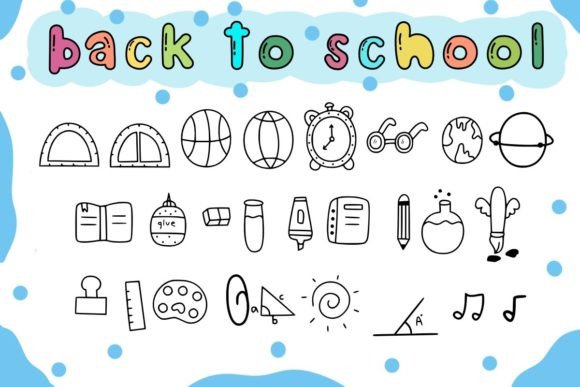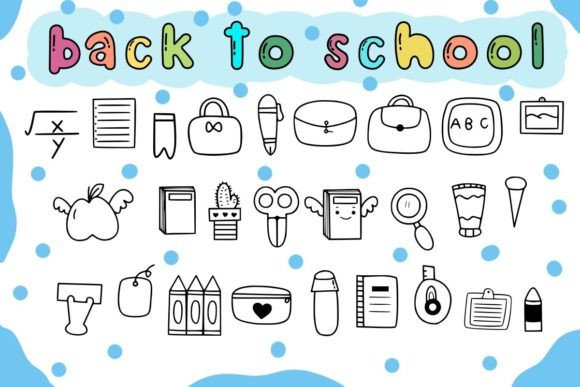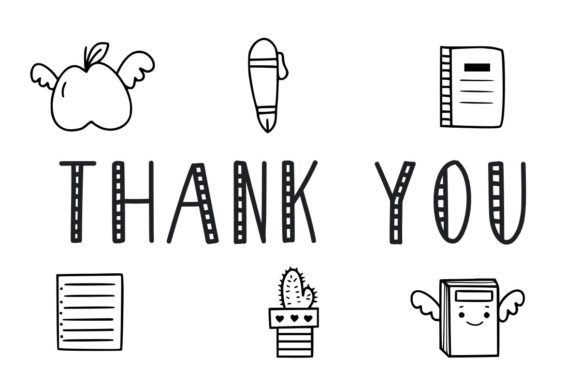
Back to School Font
About Back to School Font
Introducing “Back To School,” a cute and useful dingbats font that captures the essence of the school season. This adorable font is perfect for a wide range of applications, including decorating designs, crafting, worksheets, digital designing, presentations, greeting card making, and more. Let “Back To School” add a touch of charm and nostalgia to your creative ideas, making your designs outstanding!
With “Back To School,” you can incorporate delightful school-themed elements into your designs. The font features a variety of glyphs that represent iconic school items such as pencils, books, apples, rulers, globes, and more. These charming symbols can be used to enhance your designs and evoke a sense of the back-to-school spirit.
In decorating designs, “Back To School” brings a playful and nostalgic touch. Use the dingbat glyphs to create borders, frames, or decorative elements for posters, flyers, or digital graphics related to education or school events. Add a whimsical touch to your designs by incorporating the cute and recognizable school-themed symbols.
Crafting becomes more fun with “Back To School.” Use the adorable dingbat symbols to create handmade cards, scrapbook layouts, or other paper crafts related to school themes. Embellish your projects with the school-themed glyphs, adding a touch of cuteness and nostalgia. Whether you’re creating a gift for a teacher or documenting your own school memories, “Back To School” will make your crafts stand out.
Worksheets and educational materials come alive with “Back To School.” Use the dingbat glyphs as decorative elements or icons in worksheets, flashcards, or educational games. Engage and motivate students with the charming symbols that represent various school-related concepts. “Back To School” adds a visually appealing touch to learning materials and makes them more inviting for students.
Digital designing becomes more vibrant with “Back To School.” Use the cute dingbat symbols to create illustrations, social media graphics, or website designs related to education or school-related topics.